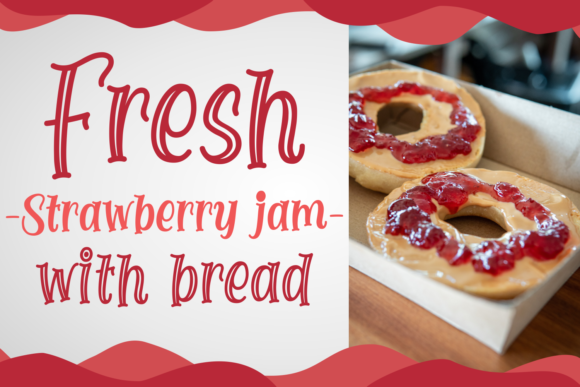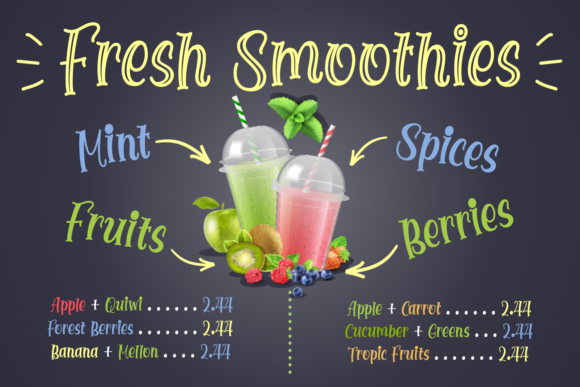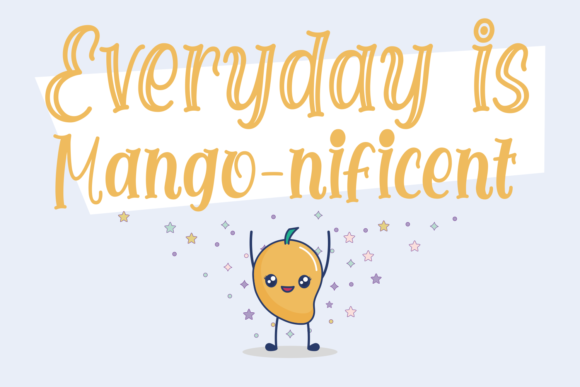
Introduction to Cherry Petite Font
Have you ever found yourself browsing through your favorite design inspiration boards, and suddenly, a colorful and whimsical font catches your eye? That’s exactly what happened to me the other day, and it led me to discover the adorable Cherry Petite Font.
As a designer, I know how much of a difference a high-quality font can make in a creative project. A well-chosen font can elevate your design and make it stand out from the crowd. And that’s exactly what the Cherry Petite Font does – it adds a touch of playfulness and charm to any design. With its transparent background and cute, rounded characters, this font is perfect for creating stunning colorful descriptions that will make your designs shine.
Key Features of Cherry Petite Font
- High-quality font designed for creative projects, ideal for use in digital and print media.
- Unique characteristics include its elegant and playful style, making it perfect for use in various creative projects, such as logo design, branding, and typography-based art.
- Designed to be highly legible, even at small font sizes, making it an excellent choice for use in digital media, such as website design, mobile apps, and social media graphics.
Honest Review: Cherry Petite Font
As a designer, I’ve had the pleasure of working with numerous fonts, but the Cherry Petite Font has truly stood out to me. Its high-quality design and versatility make it a great addition to any creative project.
One of the standout features of this font is its transparent background, which allows it to blend seamlessly with any design. This makes it perfect for use in logos, branding, and other visual elements where a clean and simple look is desired.
Here are some things that work well with the Cherry Petite Font:
- ✨ Transparent background for easy blending with designs
- ⚠️ Limited character set, which may require additional fonts for extended use
- ⚠️ May not be suitable for large-scale text, where readability can be compromised
Overall, I’m very impressed with the Cherry Petite Font and would highly recommend it to designers looking for a high-quality, free design resource.
To get the most out of the Cherry Petite Font, use it in combination with other high-quality design resources. Experiment with different font sizes, colors, and styles to create unique and eye-catching designs. Don’t be afraid to push the limits of what’s possible with this versatile font.
The Cherry Petite Font is perfect for a variety of creative projects, including logos, posters, social media graphics, and business cards. Its high-quality design and transparent background feature make it an excellent choice for designers looking to create beautiful, layered designs.